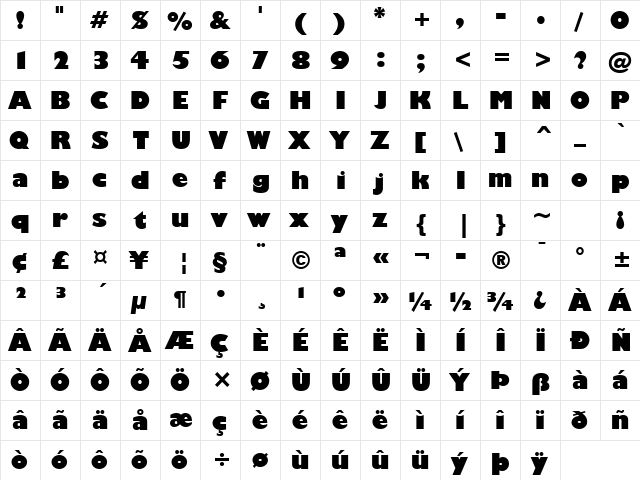
Humanst521 UBd BT Ultra Bold
Design Context for Humanst521 UBd BT Typeface
Humanst521 UBd BT takes a measured approach to typography — its balanced proportions and neutral character make it a reliable workhorse for both digital and print work. The heavy weight commands attention and anchors typographic hierarchies.